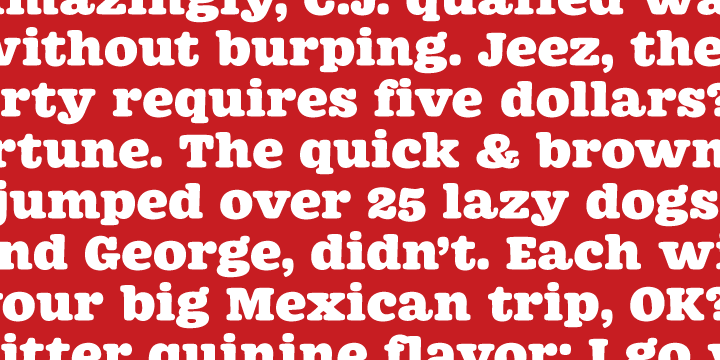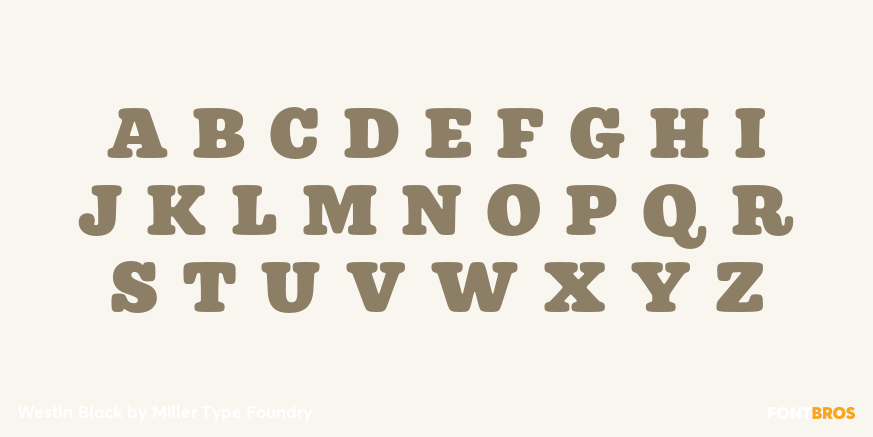
Westin Black
Font Family by Miller Type Foundry
Westin Black is a great alternative to Cooper Black. Heavily influenced by clarendon typefaces, Westin Black also has a slight humanistic touch. It comes with open type features like old style figures, tabular figures and some ligatures.